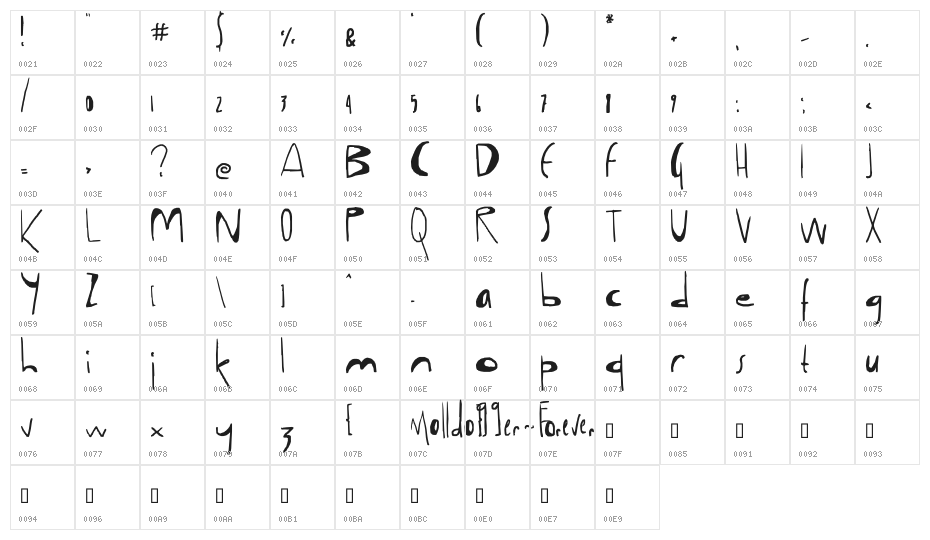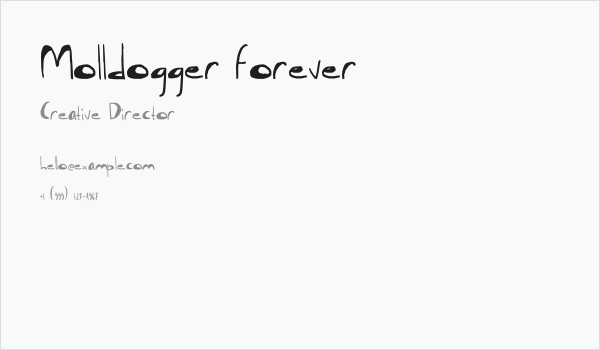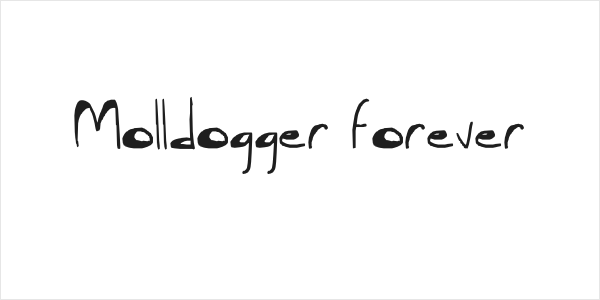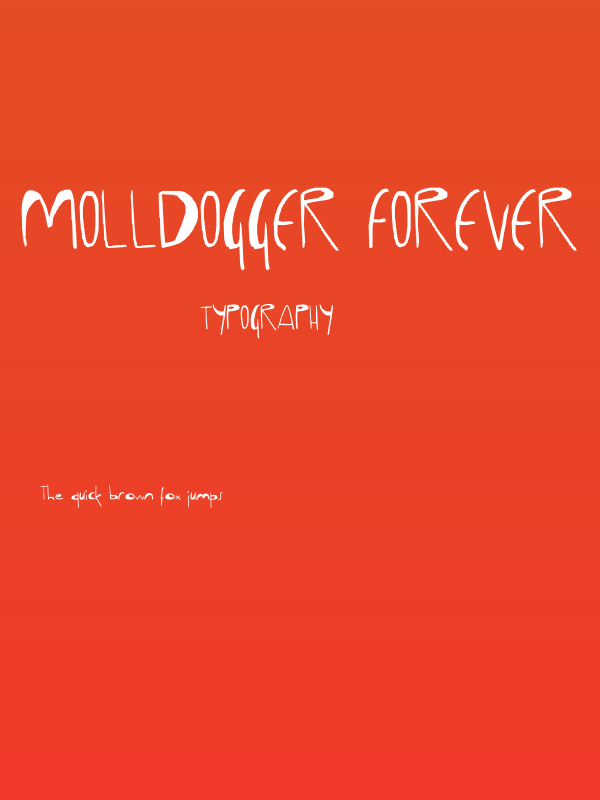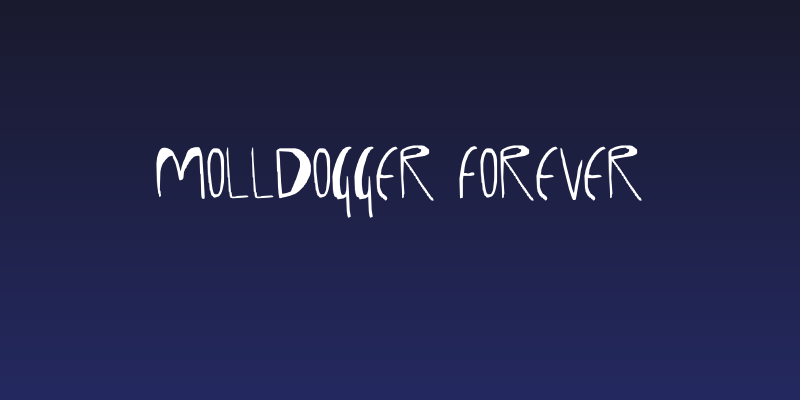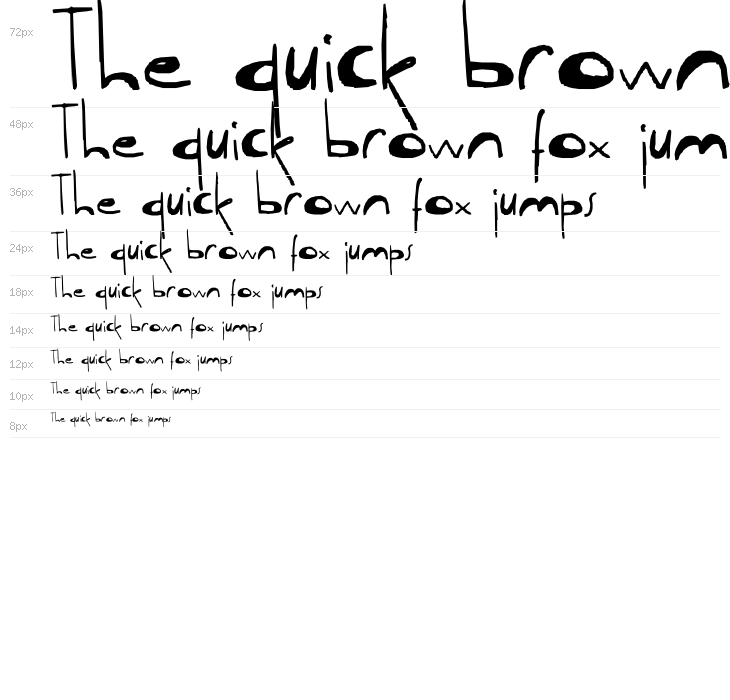
Molldogger Forever Font
Molldogger Forever Description
This font exhibits a playful and quirky handwritten style, characterized by its irregular and uneven strokes. The uppercase letters are tall and narrow, with a distinctively casual appearance, while the lowercase letters maintain a consistent yet whimsical form. The numbers and special characters follow the same playful aesthetic, adding to the font's overall charm. The strokes vary in thickness, providing a dynamic and lively feel. This font is perfect for projects that require a personal touch or an informal vibe.
| Use Case | Logos, Headlines, Informal Text |
| Proposed Projects | Ideal for greeting cards, children's books, casual posters, and creative branding. |